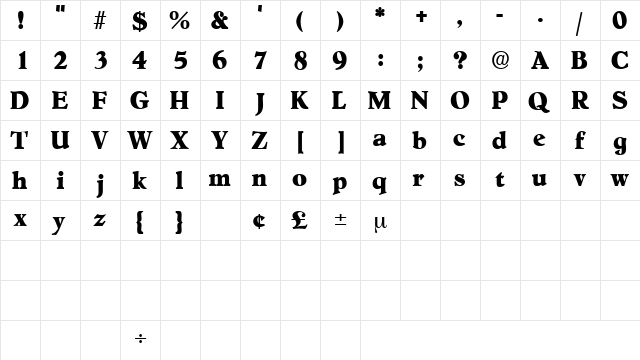
NegotiatDisplaySSK Regular
Design Context for NegotiatDisplaySSK Typeface
NegotiatDisplaySSK is built around its visual character rather than neutral utility — its distinctive forms are designed to make an impression at display sizes.
Font Pairing: Pair with a clean neutral sans-serif for body copy to let NegotiatDisplaySSK's character lead without overwhelming the composition.
Pro Tip: Use NegotiatDisplaySSK exclusively at display sizes — it was designed to be seen, not read at length. Let a neutral companion handle body copy.